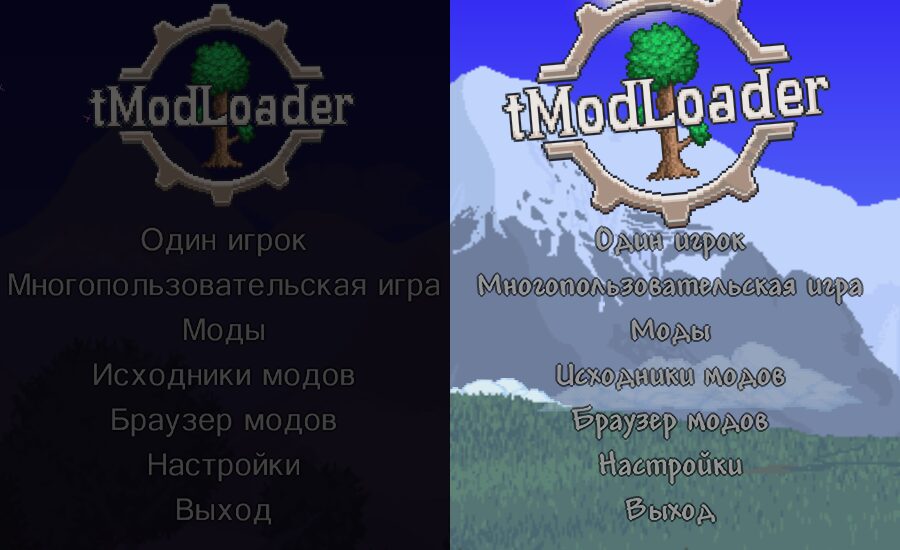
Better Russian Font (Улучшенный русский шрифт)
Enhance Your tModLoader Experience with a Superior Russian Font
Are you a tModLoader player who prefers to immerse yourself in the game using the Russian language? While tModLoader offers incredible flexibility and a vast modding community, sometimes the default text can detract from the experience. If you’ve found the standard Russian font to be less than ideal, a new mod is here to revolutionize your visual journey through the game.
A Visually Pleasing Cyrillic Upgrade
This thoughtful modification addresses a common pain point for Russian-speaking players by replacing the default Cyrillic font with a meticulously crafted version of Andy Bold. Andy Bold is the very typeface used for English text within tModLoader, ensuring a consistent and aesthetically pleasing look across all languages. The result is a Cyrillic font that not only looks fantastic but also integrates seamlessly with the game’s overall design, making reading text a genuine pleasure rather than a strain on your eyes.
Key Features and Benefits:
• Improved Readability: Enjoy clearer and sharper text, making it easier to navigate menus, read item descriptions, and follow in-game dialogue.
• Aesthetic Cohesion: The Cyrillic version of Andy Bold perfectly complements the game’s existing visual style, creating a more polished and unified presentation.
• Reduced Eye Strain: Say goodbye to distracting or difficult-to-read characters and embrace a smoother, more comfortable gaming session.
• Seamless Integration: This mod is designed to work harmoniously with tModLoader, ensuring a stable and hassle-free experience.
This mod is a testament to the collaborative spirit of the tModLoader community. The Cyrillic version of Andy Bold was expertly created by the Translators Team, building upon the original Andy Bold font designed by MonoType & Steve Matteson. The technical implementation of this font swap was handled by Mirsario, with a special acknowledgment for EnotikSergo for porting the mod to the latest version of tModLoader, ensuring its continued availability and compatibility for all players.